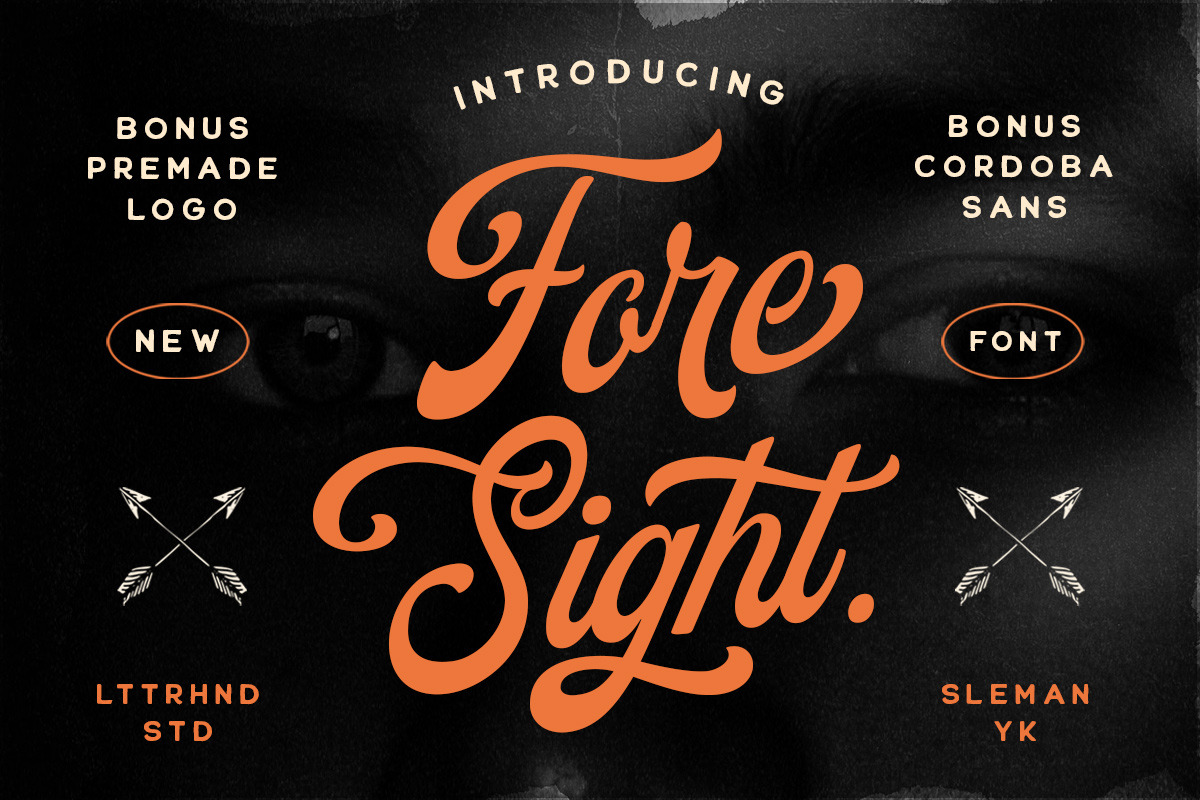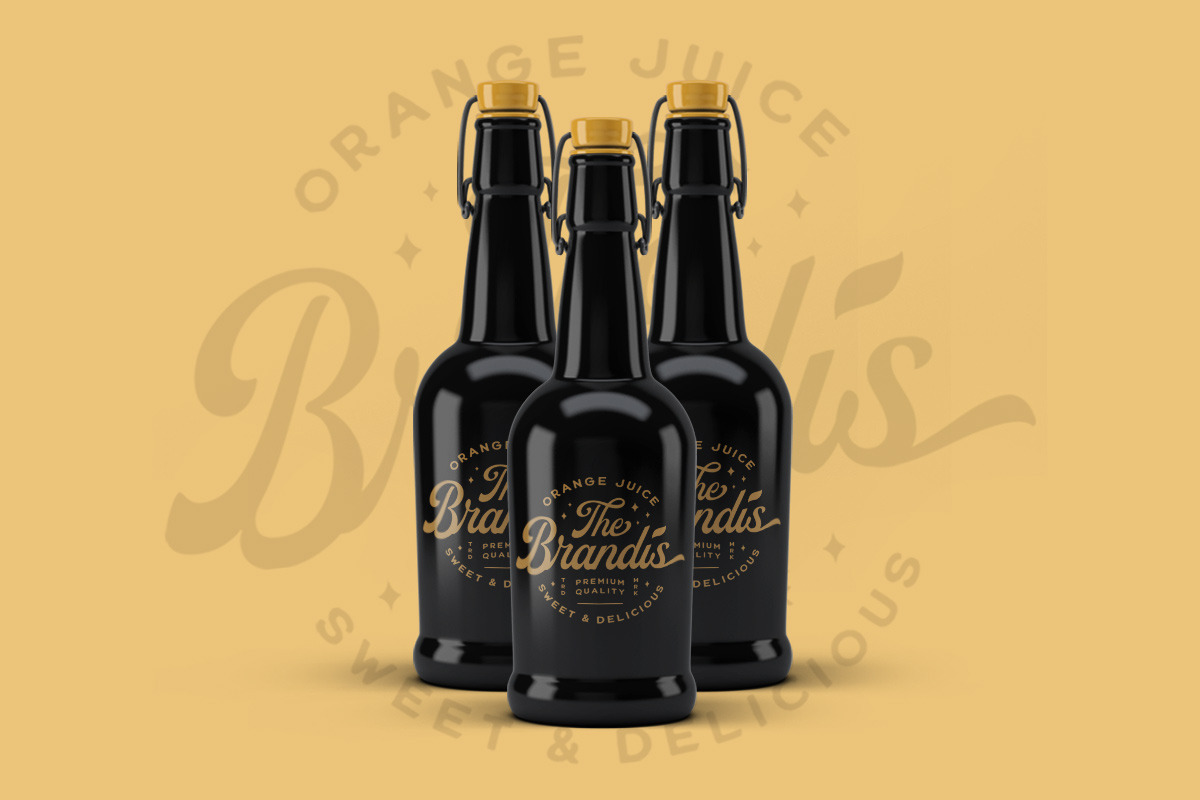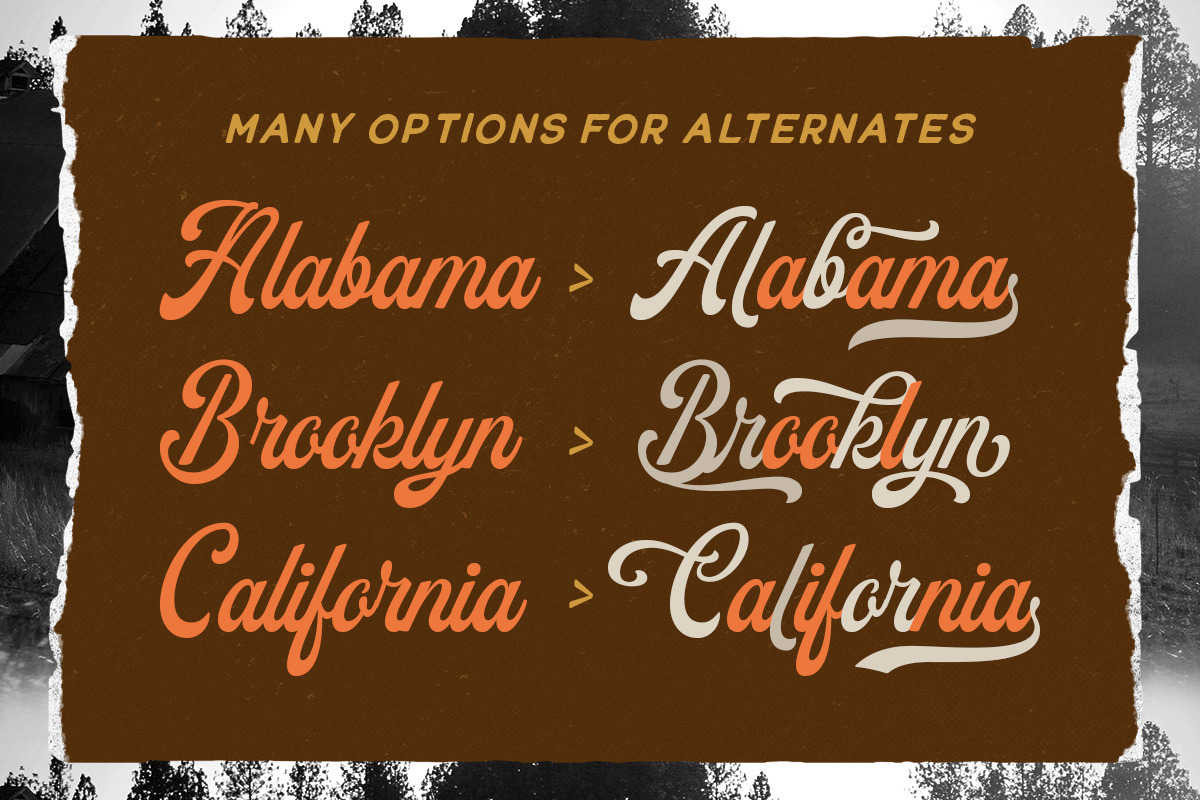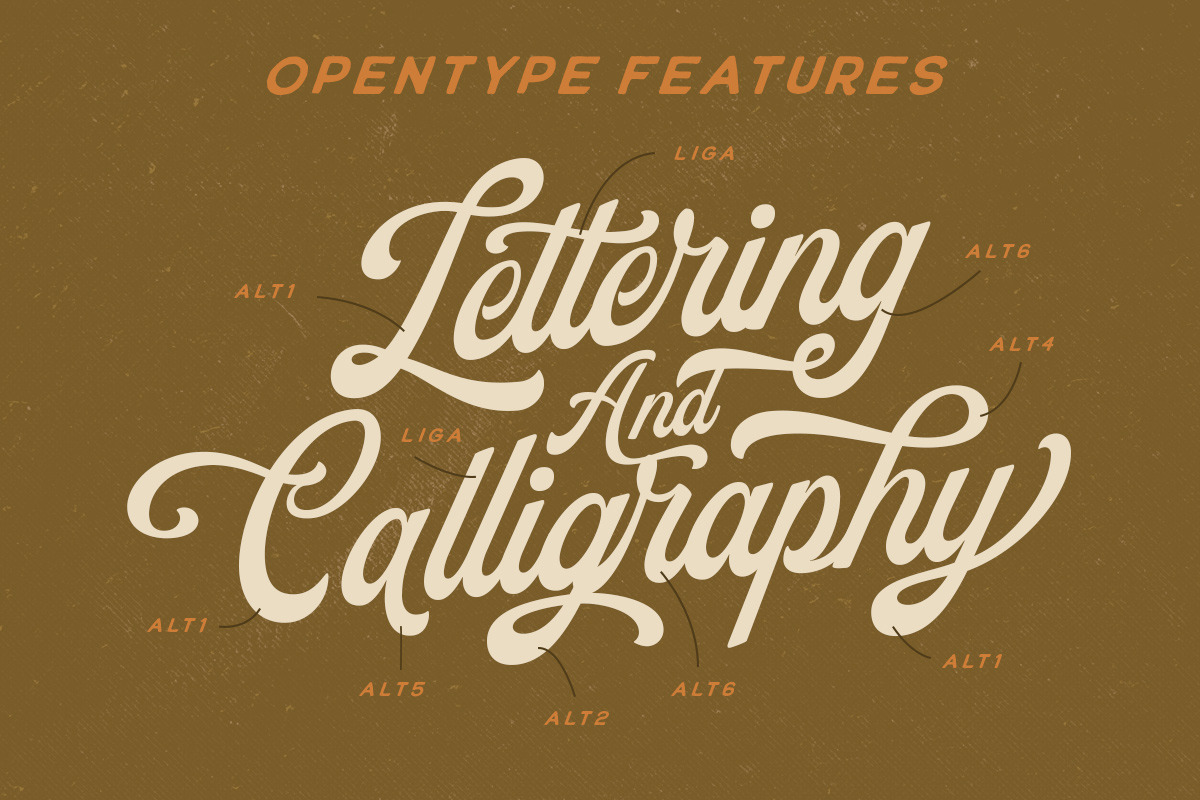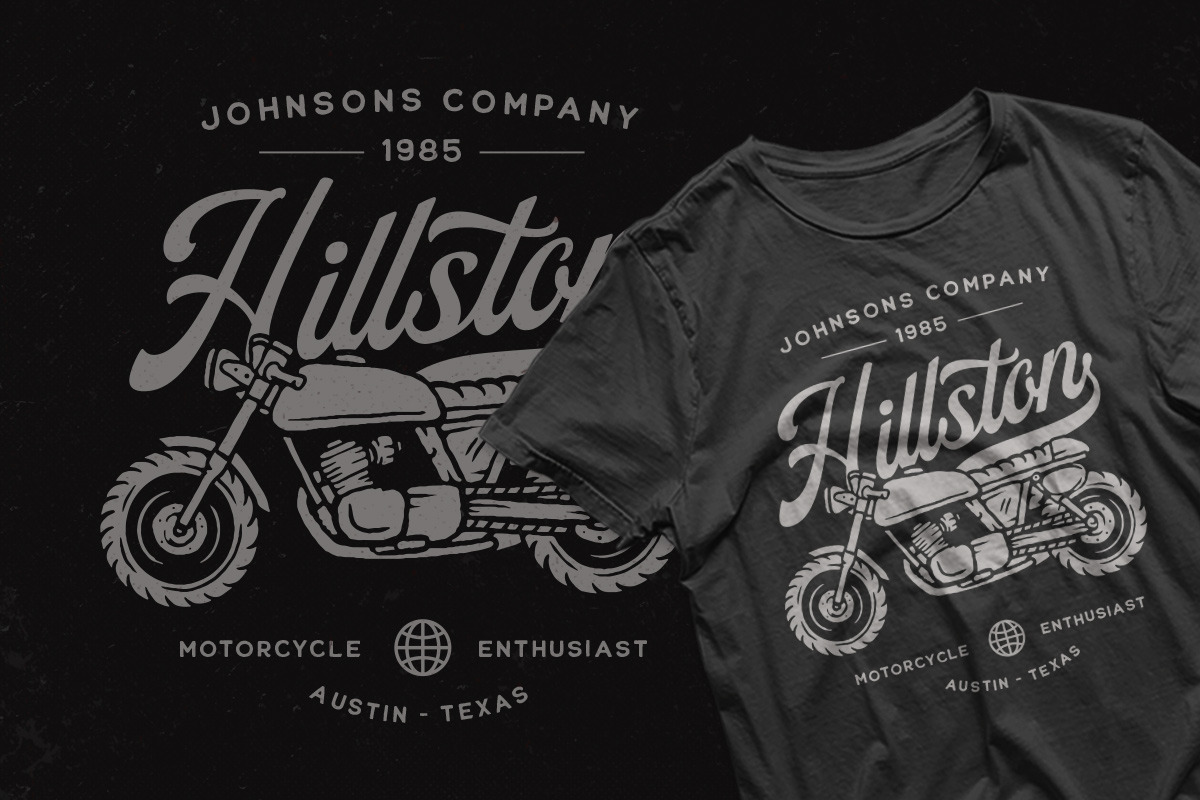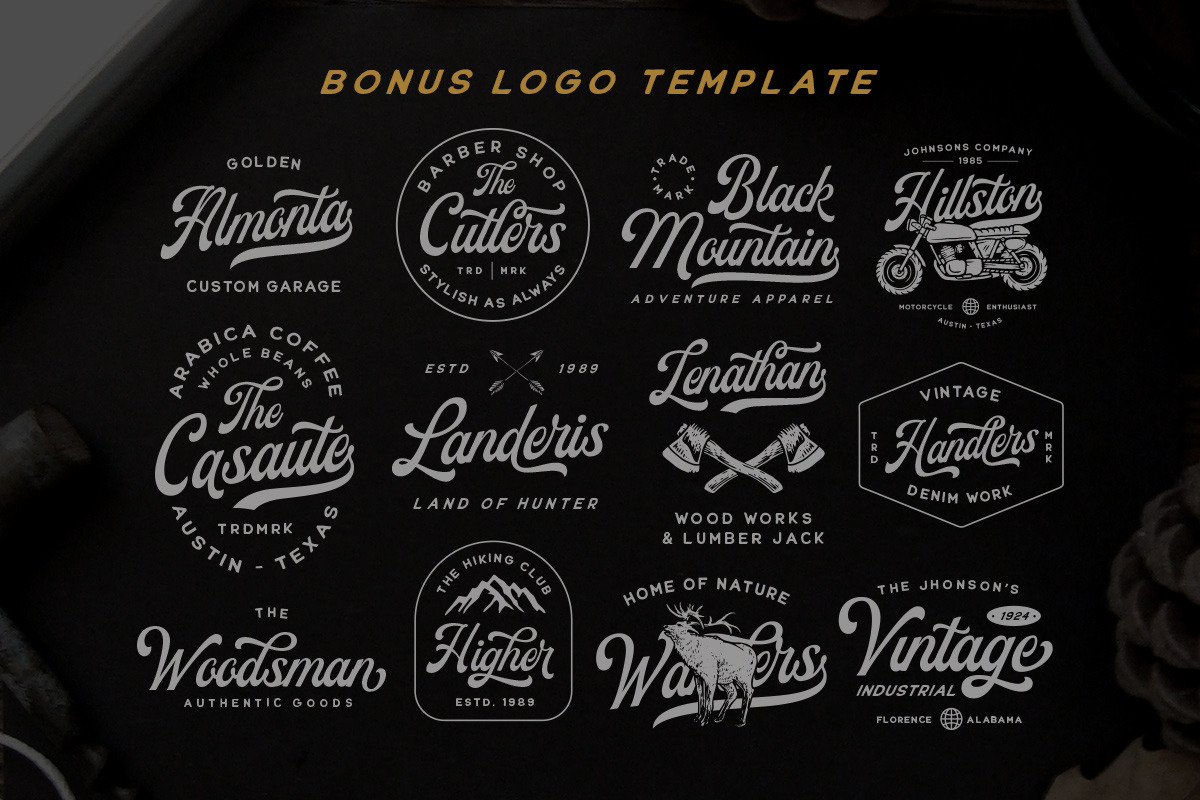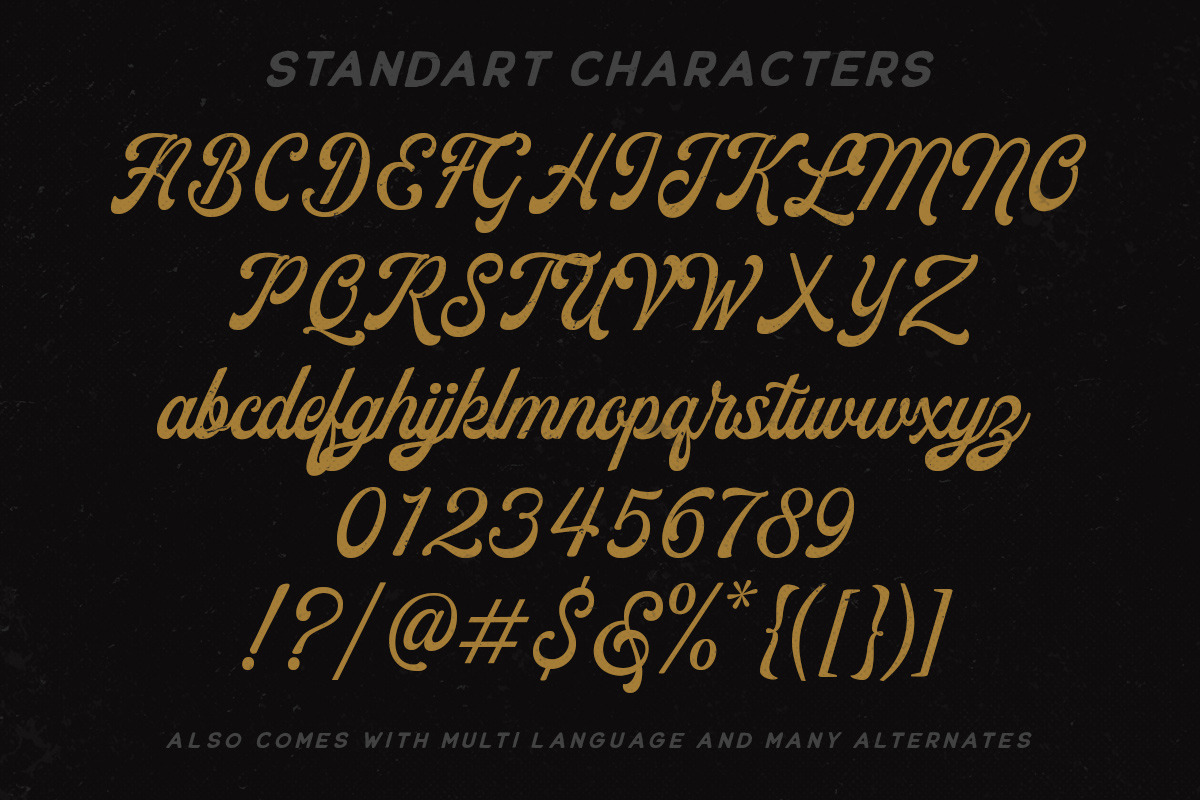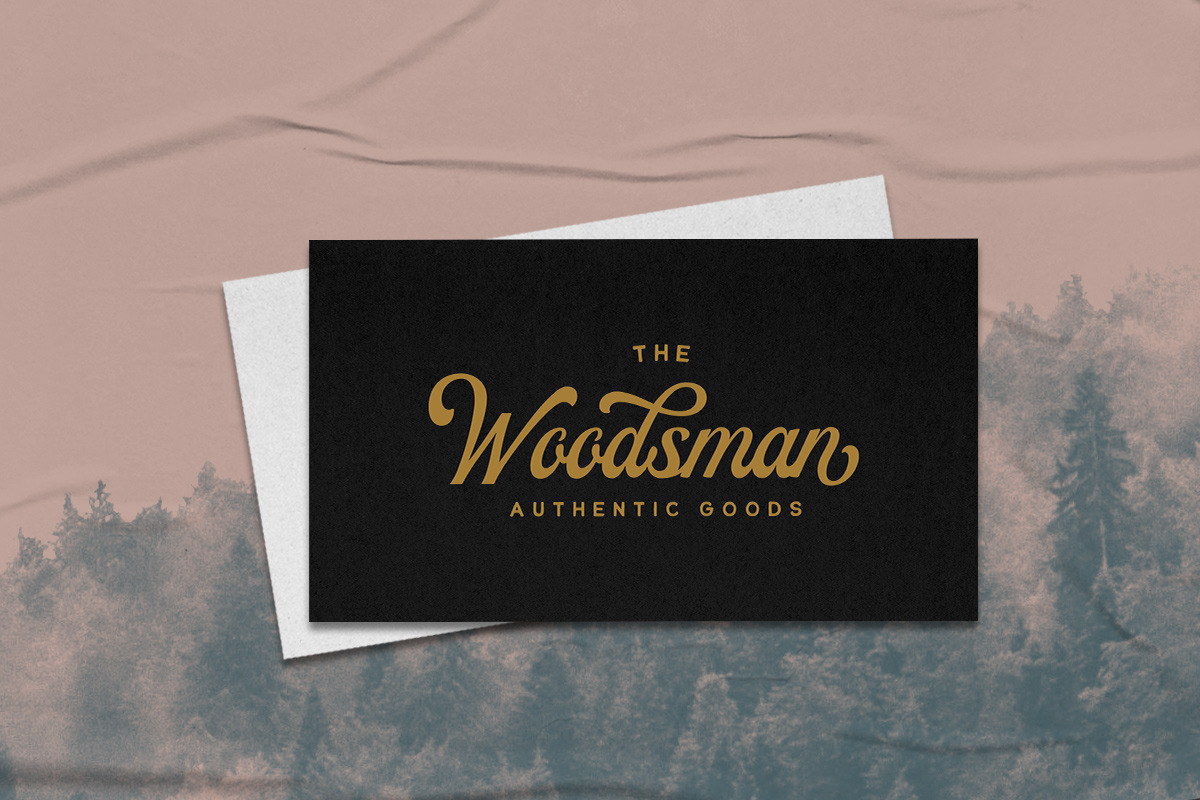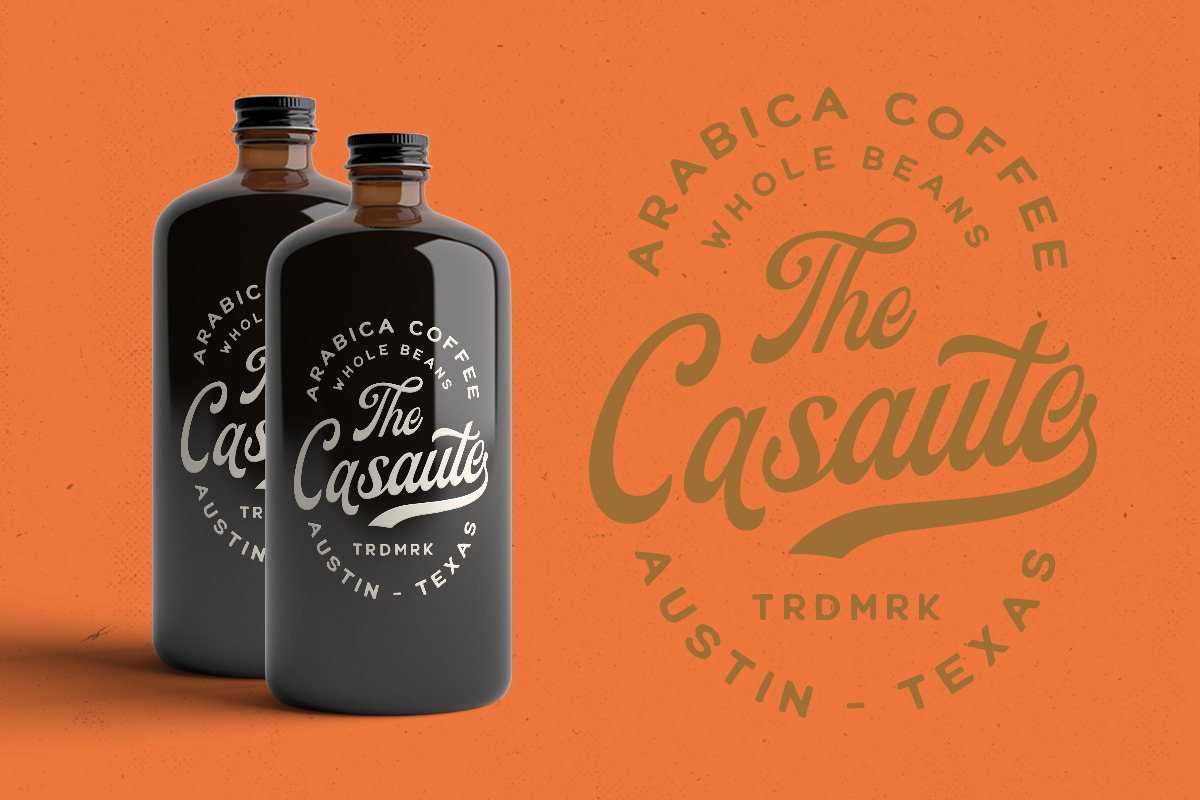
Foresight Font + Logo Template
Foresight is a vintage script font which is purposely made for a headline, display or logotype. It comes with 12 logo templates. This type of font perfectly made to be applied especially in logo, and the other various formal forms such as invitations, labels, logos, magazines, books, greeting / wedding cards, packaging, fashion, make up, stationery, novels, labels or any type of advertising purpose.
- alternates & ligatures